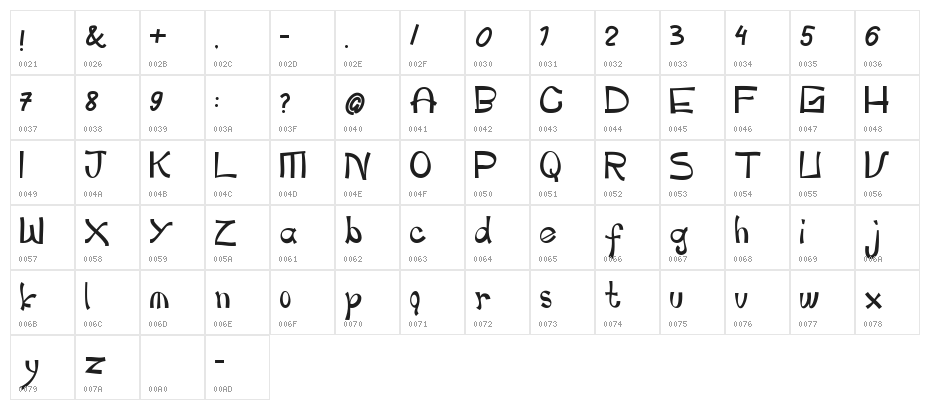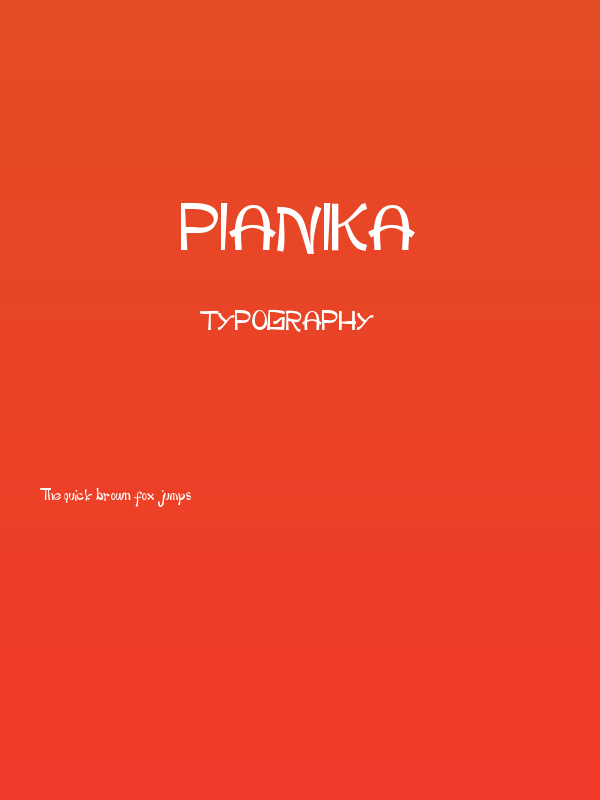
Pianika Font
Pianika Description
This font features a playful and whimsical design, characterized by its irregular and quirky letterforms. The uppercase letters exhibit a unique blend of curves and angles, giving them a dynamic and lively appearance. The lowercase letters maintain this playful style, with some characters having exaggerated loops and strokes. The numbers follow the same whimsical theme, making them stand out with their distinct shapes. Special characters are creatively designed, adding to the overall fun and artistic vibe of the font. This font is perfect for projects that require a touch of creativity and personality.
| Proposed Projects | Ideal for children's books, creative posters, playful branding, and artistic invitations. |